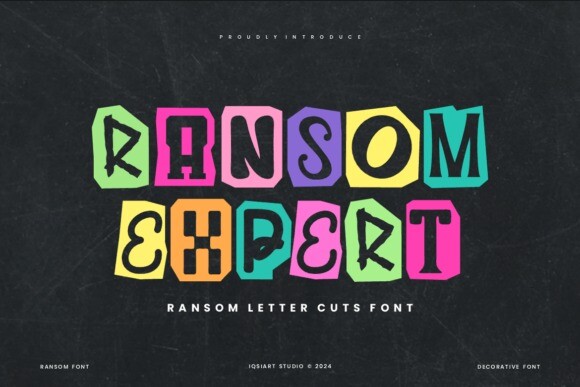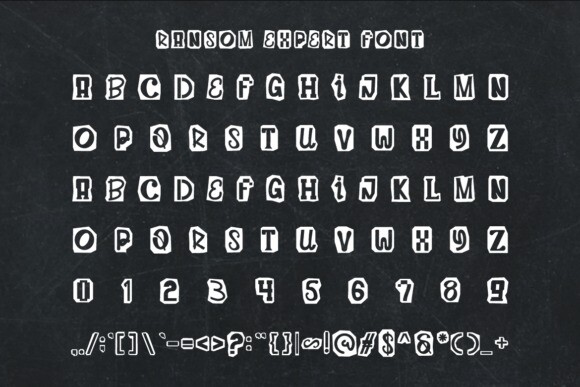
Ransom Expert Font
Ransom Expert Font is a style of decorative lettering that mimics the look of letters cut out from different types of paper, often with varying shapes, sizes, and colors. It creates a bold, eye-catching effect, like the ransom notes seen in movies, where each letter looks unique and pieced together in a playful, quirky way.